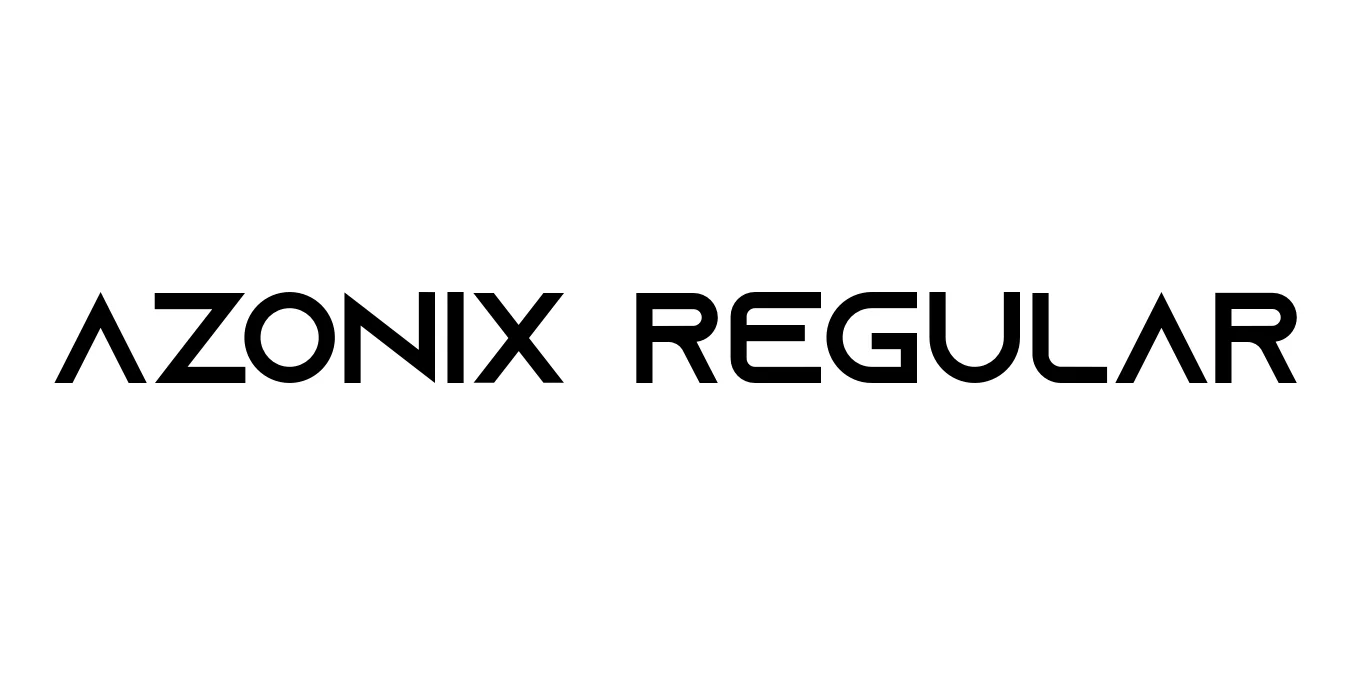
Azonix Regular
Designed by Mixo
| Category | Sans Serif / Futuristic |
| Designer | Mixo |
Azonix Regular is a contemporary, geometric sans-serif typeface meticulously crafted by the designer Mixo. It is characterized by its minimalist aesthetic and striking futuristic silhouette, featuring clean lines, sharp angles, and a distinctive lack of traditional decorative flourishes. The font’s architecture is rooted in a bold, tech-inspired philosophy, making it an exceptional choice for projects that require a sense of innovation and forward-thinking design.
Since its release, Azonix has become a favorite among digital designers for its high legibility in display contexts and its uniform stroke width. Its balanced proportions and professional appearance make it versatile enough for corporate branding, science fiction themes, and high-impact headlines. Whether used in print or digital media, Azonix maintains a crisp and modern presence that elevates the visual hierarchy of any layout.
Azonix Regular Best Uses
Highly effective for tech startups and modern corporate identities seeking a professional look.
Perfect for creating bold, impactful titles on website hero sections and event posters.
Ideal for futuristic user interfaces in mobile applications and video games.
Great for eye-catching digital marketing graphics and minimalist social posts.